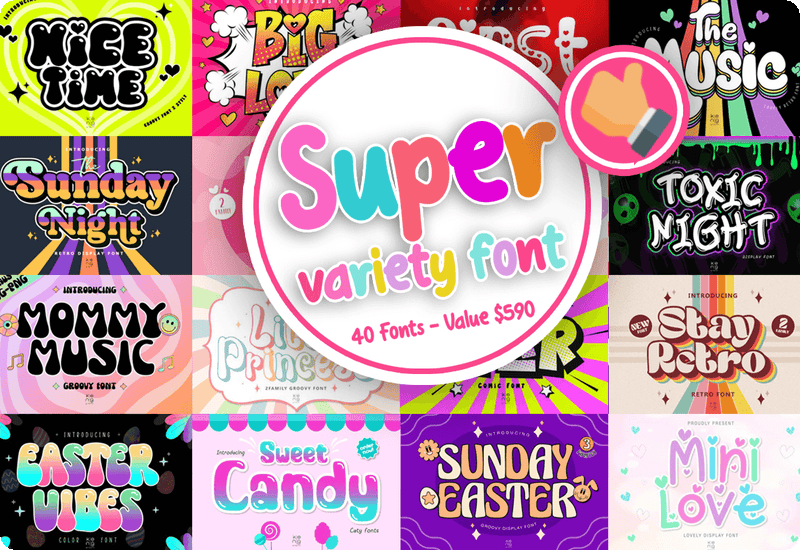
A Complete Font Collection for Designers & Businesses
The Super Variety Font Bundle is a carefully curated collection of 40 premium fonts designed to meet a wide range of creative and professional needs. Whether you’re working on branding, logo design, invitations, posters, social media graphics, packaging, or digital art, this bundle provides the versatility and style needed for high-impact typography.
Featuring an extensive selection of retro, decorative, handwritten, script, and modern display fonts, this set is ideal for graphic designers, businesses, marketers, and creative professionals looking to enhance their work with unique lettering styles.
What’s Included in the Super Variety Font Bundle?
✔ 40 Unique Premium Fonts – A diverse range of display, script, decorative, and handwritten fonts.
Super Variety Font Bundle Content
40 Premium Fonts in the Super Variety Font Bundle:
• Easter Vibes – Color Font
• Yeah Display Font – Groovy Retro Font
• Stay Retro Display Font
• The Music Display Font
• Clover King Display Font
• Minnie Heart – Cute Display Font
• Little Princess Display Font
• Big Love Display Font
• Toxic Night Display Font
• Mini Love Display Font
• Super Mommy – Lovely Display Font
• Retro Moment Display Fonts – Vintage Retro Font
• The Star Display Font
• Love Farm Decorative Font
• Kiss Love Display Font
• Baby Kind Display Font
• Sweet Candy Display Font
• The Sunday Night Display Font
• Sunday Easter Display Font
• First Kiss Fontes de Exibição Fonte
• Jazz Day Display Font
• Magic Cat Decorative Font
• Papa Flower Display Font
• Summer Season Display Font
• Love Me Script & Handwritten Font
• Nice Time Display Font
• Felling Lucky Display Font
• Mommy Music Fontes de Exibição Fonte
• Sea Time Display Font
• Bigger Heart Display Font
• Farm Love Decorative Font
• Rabbit Night Display-Schriftarten Schriftart
• The Farmhouse Display Font
• Bkk Mafia Display Font
• Live Night Fontes de Exibição Fonte
• Kiddy Story Fontes de Exibição Fonte
• Play Kid Display Font
• Shine Bright Script & Handwritten Font
• Baby Boom Display Font
• Love Cake Display Font
1. 40 Unique Fonts for Limitless Creativity
This bundle offers a wide variety of fonts, each crafted to deliver distinctive typography for different creative projects. The collection includes:
• Retro & Vintage Display Fonts – Perfect for posters, album covers, and nostalgic designs.
• Decorative & Themed Fonts – Playful, stylish fonts for seasonal and themed projects.
• Handwritten & Script Fonts – Elegant and casual handwriting styles for invitations and branding.
• Modern & Bold Fonts – High-impact, attention-grabbing typography for logos and marketing materials.
No matter your design style or project type, this bundle ensures you have the right font for any occasion.